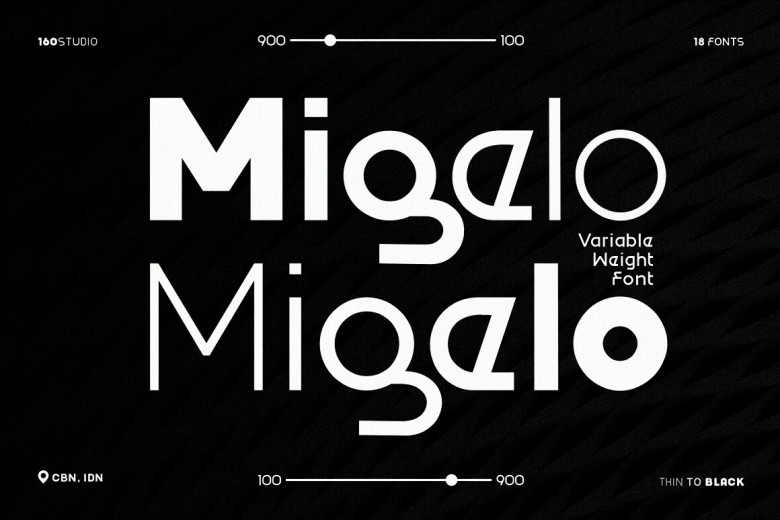
Migelo Font
Migelo is an adaptable Sans Serif font created with careful consideration to display text optimally, featuring 9 variants ranging from black to thin and 9 italic variants. Migelo can be used in a wide range of uses – stunning headlines, logos and designs, appealing quotes, posters or product display are just a few uses where Migelo stands out as the ideal font choice.
Migelo provides you with all of the flexibility needed for any design project using Migelo effortlessly enhancing its aesthetic value effortlessly enhancing aesthetic appeal effortlessly while maintaining aesthetic quality throughout.
Migelo Sans Serif Font